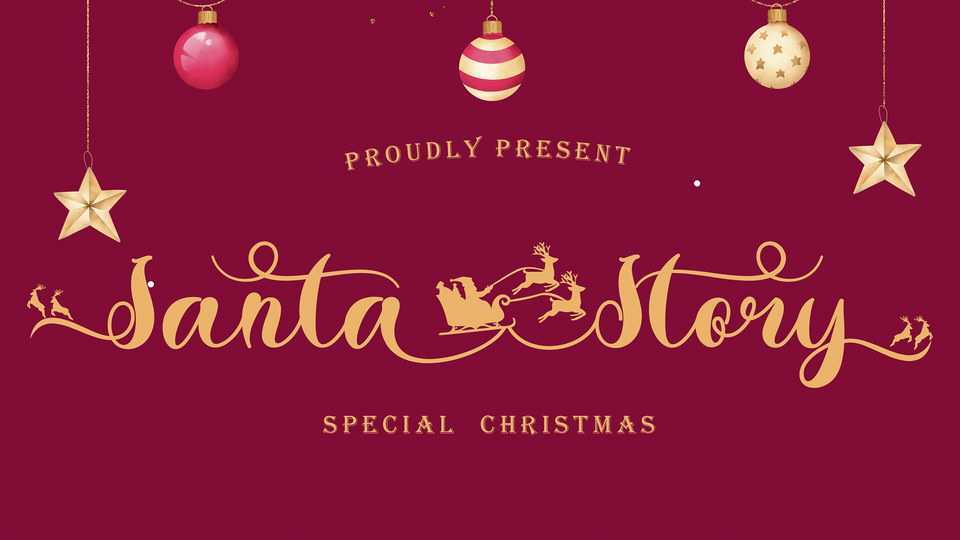
Download Santa Story font, a special Christmas typeface, but it also can be used for any type of work. Santa Story has a unique design with ornate lettering Santa equestrian.